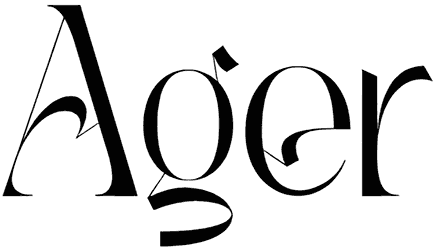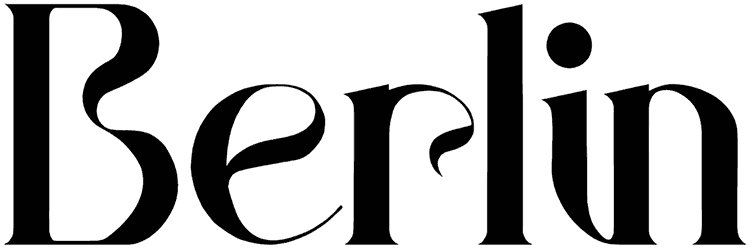
Ravegic Font
You’ll never have to complain about running out of creative ideas for designing a new logotype as long as you’ve got Ravegic on your side. The fancy style of this serif font is enough to charm everybody at first encounter, just as you wish.
See how easy it can be to create the best business cards for wedding planners, interior designers, restaurants, or anything else like that if you’re just lucky enough to find such a magnificent logo font.